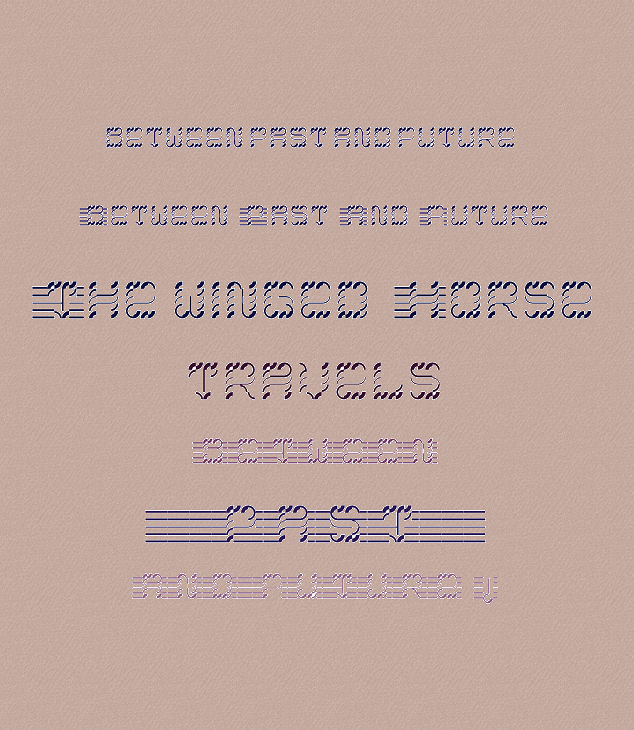
• The current month seems to hold a meaning of threads: of fog, dew covered spiders' webs, barely-there things, feint perceptions defying scientific understanding and fine links with ancestors, to keep us in the present and enable open minds and caring souls to better the future.                                This abstract interpretation of Halloween has been designed to echo the traditionally mysterious mood to show the past (known glyphs, earlier FS bricks) linked in the present (on paper, in the FS previews, and using some of Meek's newest bricks I experiment with in this design) to create future (text will carry meaning to the reader, diversity of thought not experienced until after every glyph is finished, and beauty of text flow is visible only after it has been written). Totally within my personal plan for Night Pegasus' work: adventurous, alternative, divergent, different, exploring, experimental, unusual --  after all, the flying horse is free to visit any time any item or existence in this universe and any place in Fontstruct, to discover and weigh possibilities, to create its future from the past in it's present body and mind, and it does this cloaked in black as deepest night, undiscovered unless someone has their feelers tuned into mystery and taps into experiences of presence.
If a LC glyph follows a UC glyph: you need to use the space bar 6X to get the correct letter space (it will then match the natural spacing between LC); using only LC glyphs (or only UC glyphs) will give satisfactory text results as letter space is set by the programming. But you'll need to manually add the word space you want: between UC (or LC) words a minimum of 3 space taps for a just visible gap, use the space bar 6x for good spacing. Experiment!
Note: the full stop and comma have a line on the baseline to link with UC. There might be no need for a 'space' after those two marks even on LC? The apostrophy has a short line to link it to previous/following UC glyphs (note those link lines retain the meaning of the glyph when used with LC glyphs or an LC following an UC glyph).
SPACE BAR = a 1px space; tap 3x to get a small word space that's obvious
% key = a set of reasonably wide lines to match upper case verticals
_underscore = a space consisting of a long single line on base line only
I'm trying to figure out some diacritics before the 31st so this remains WIP
Clearly the winged horse had a problem finding the best possible colours to show the more elegant brick work. Sorry, even the large sampler image is useless; I'll attempt a clearer version in November.
Nice one! It uses both the basic bricks and the connecting bricks
Suggestion: Can you add the numbers with the lines so I can use them with the Capitals...
Also, your lowercase æ has an extra line (See Sample)...
Another Suggestion: A variation with the reversed contrast would be great...
@77: thanks for spotting that line; ouff, I was so sure I had removed the unwanted lines :/ As for numbers with lines: use % before numeral (3px wide), # after numeral (2px wide). If you want slight 'linking' use the _ underscore before/without % ;)
As to reversing colours: would look good as alternatives/lower case. But sorry, I wouldn't manage making composites to create those delicate curved lines while maintaining current proportions.